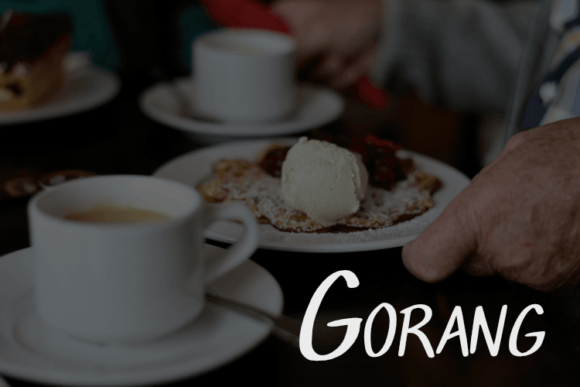
Introducing Gorang Font: Unleash the Elegance and Modernity in Your Digital Creations
Embark on a typographic journey with Gorang Font, an exquisite script-typeface crafted to elevate your digital designs with sophistication and style. Glowing with a simple yet captivating essence, Gorang exudes a modern flair that will make your creations stand out from the crowd.
Step into a world of limitless possibilities with Gorang, the font that empowers you to:
- Craft unforgettable logos that radiate elegance and luxury, leaving an indelible mark on your brand's identity.
- Design book and movie titles that captivate and intrigue, drawing readers and viewers into your captivating stories.
- Create fashion-forward designs that embody the essence of style and sophistication, making your brand the epitome of chic.
- Elevate magazines and other publications with Gorang's timeless beauty, ensuring your words leave a lasting impression on your audience.
- Design captivating clothing lines that exude a sense of effortless grace, making your creations the envy of fashionistas everywhere.
- Create stunning fonts that become the foundation of your typographic masterpieces, adding a touch of brilliance to every word you write.
- Design thought-provoking quotes that inspire and empower, using Gorang to amplify their message and leave a lasting impact.
With Gorang Font, the possibilities are endless. Its versatility knows no bounds, making it the perfect choice for a wide range of design projects. Whether you're a seasoned designer or just starting your creative journey, Gorang will become your trusted companion, guiding you towards typographic excellence.
Don't let your designs settle for ordinary. Embrace the power of Gorang Font and watch your creations transform into masterpieces that captivate and inspire.